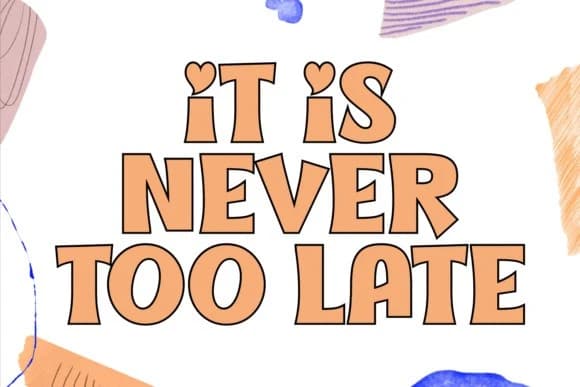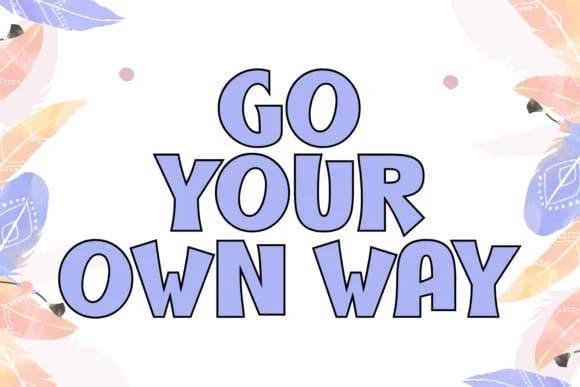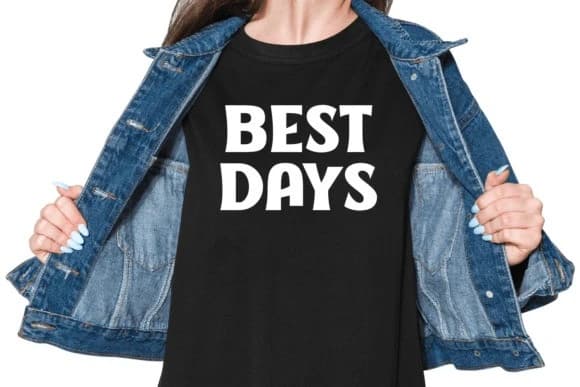
Kindly Share Font, the ultimate display font ideal for numerous applications. From crafting wallpapers that draw the eye to zooming in on perfect headlines, this font adds a dash of elegance and allure to everything it touches.